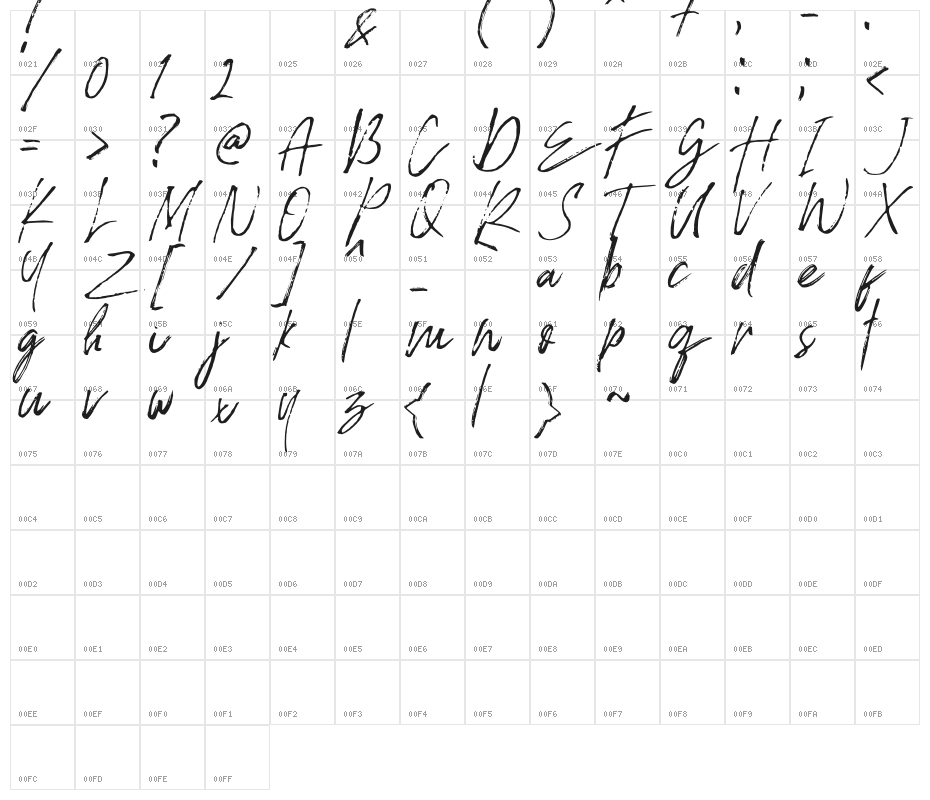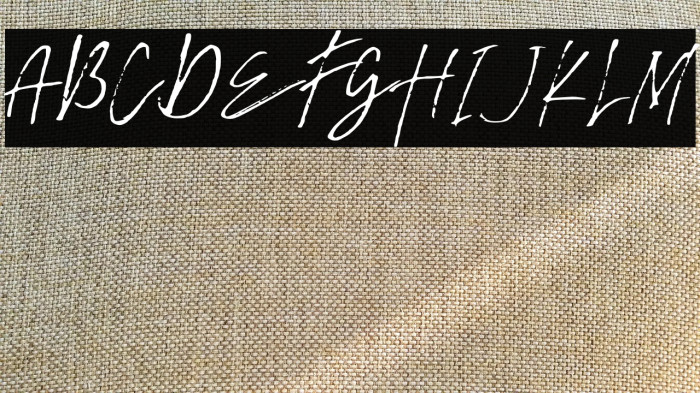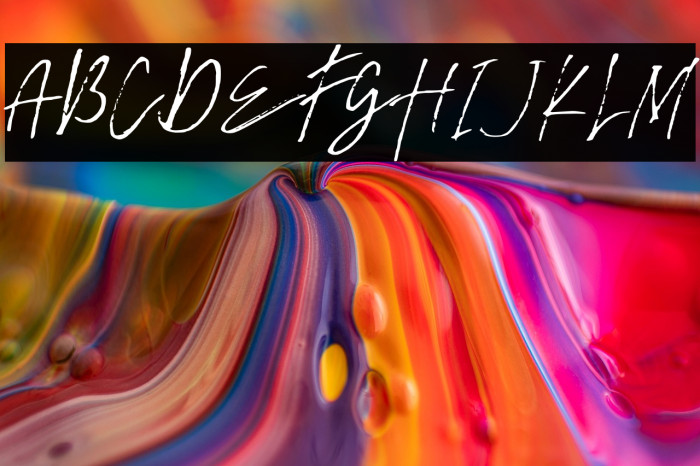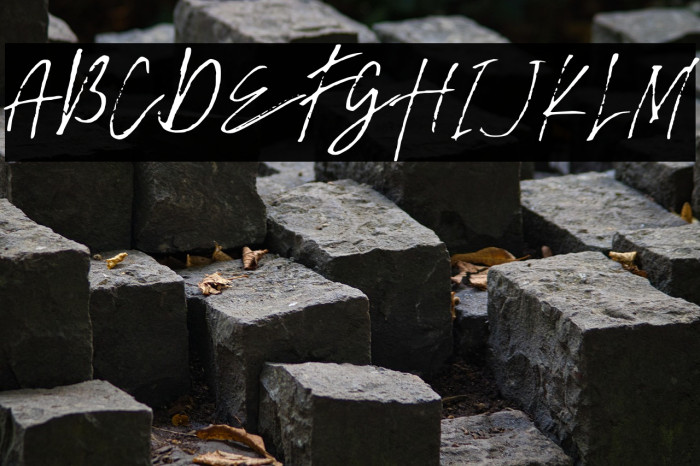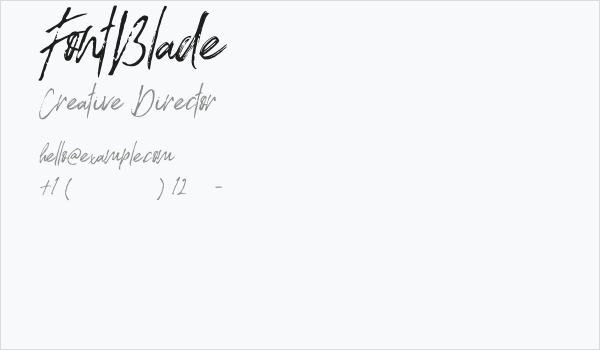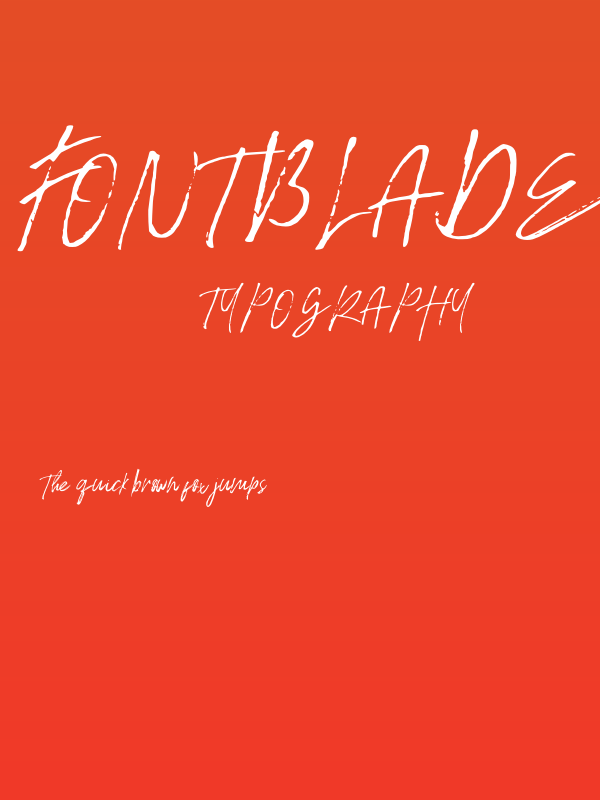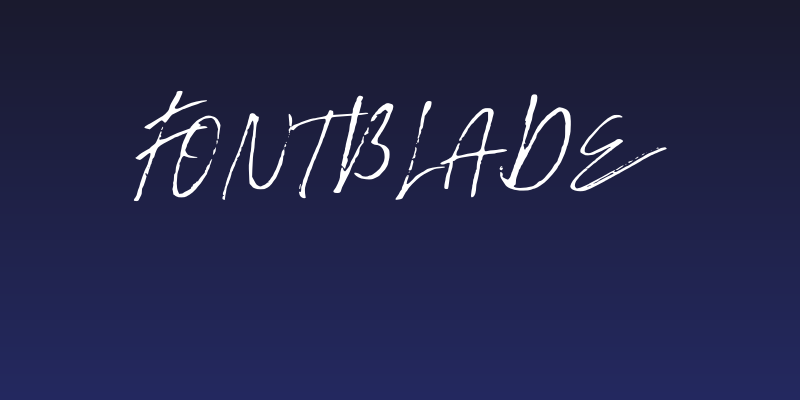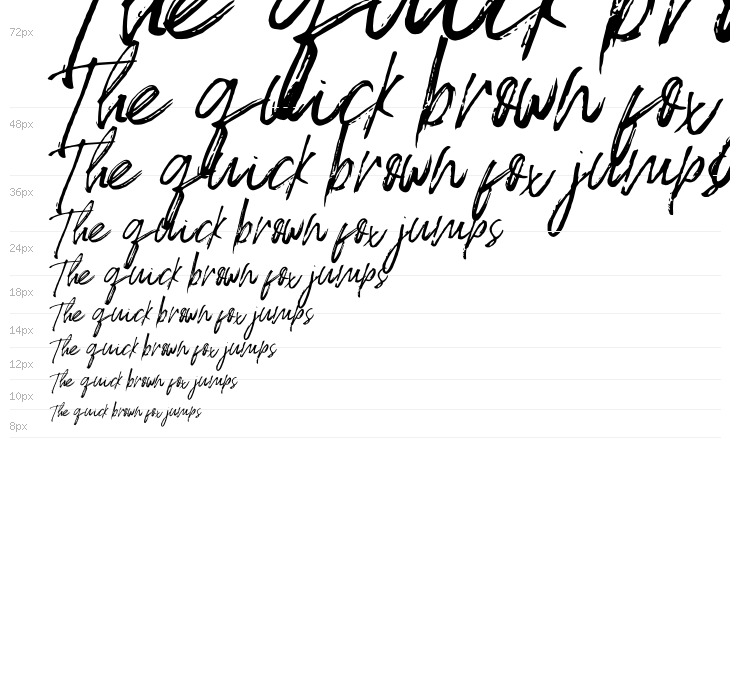
FontBlade Font
FontBlade Description
This font features a dynamic and expressive style, characterized by its handwritten, brush-like strokes. The uppercase letters exhibit a sense of motion and fluidity, with varying stroke widths that add a lively and energetic feel. The lowercase letters continue this theme, offering a more compact and dense appearance, which enhances the overall boldness of the font. Numbers and special characters maintain the same energetic brush style, ensuring consistency across all elements. The font's unique style makes it ideal for creative and artistic projects, where a personal and informal touch is desired.
| Use Case | Logos, Headlines, Posters |
| Proposed Projects | Ideal for artistic projects, branding, posters, and creative designs. |